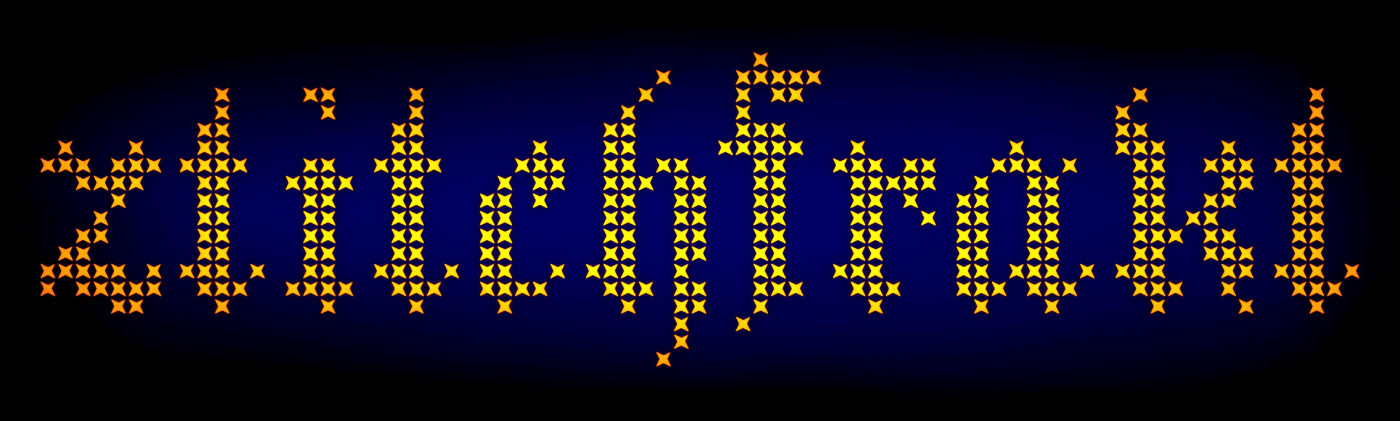
Cross-stitch version of my zhowfrakt font, made for a personal project. I hope some grandma likes it. :D
Not a grandma, but definitely like it!
Wow! No fail in something (i think)!
I love it
ztitchfrakt.
A cool-textured Fraktur font.
Beautiful. I believe you edited the original source and made the capitals more legible. I have an old Luther Bible printed with a similar fraktur font, and the capitals are so embellished that I can hardly recognise them. Great work. 10/10
very impressive font!